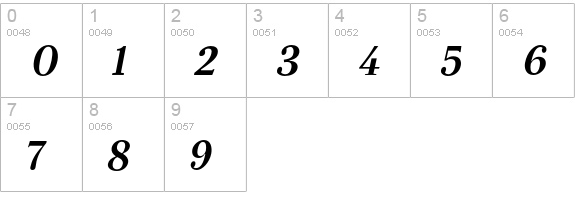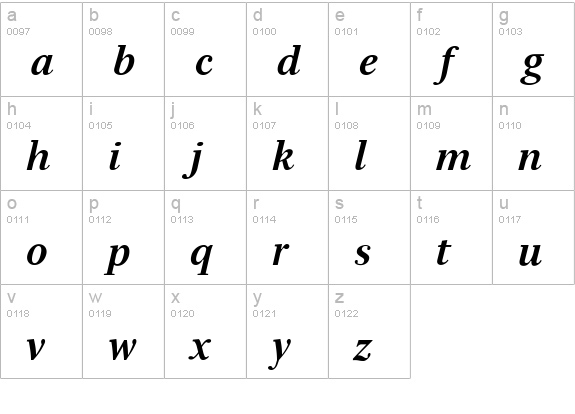
Serif12 Beta Bold Italic Font Details
Serif12 Beta Bold Italic is a strong, high-contrast, italic variant in the Serif12 typeface family \xE2\x80\x94 well suited to headlines, attention-grabbing titles, and strong calls-to-action.
Introducing Serif12 Beta Bold Italic font - a dynamic and elegant typeface designed to make a bold statement in your projects. This font strikes the perfect balance between traditional sophistication and modern flair, making it ideal for a wide range of design applications. With its strong, slanted letters and distinctive serifs, Serif12 Beta Bold Italic exudes confidence and style. And the best part? This premium font is available for free download at FontsMarket.com. Whether you're working on a branding project, editorial design, or website layout, Serif12 Beta Bold Italic will add a touch of sophistication and professionalism to your work. Don't miss out on this opportunity to elevate your designs with a timeless typeface that stands out from the crowd. Download Serif12 Beta Bold Italic today and unleash your creativity!